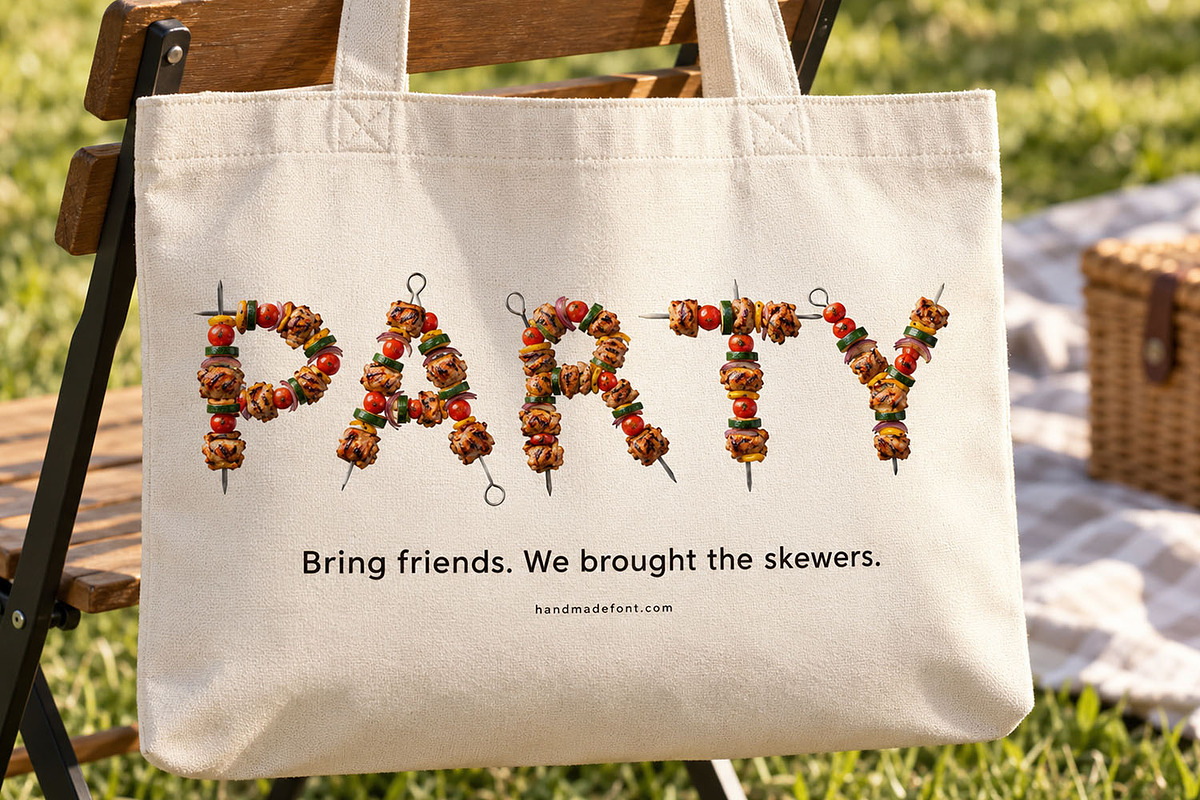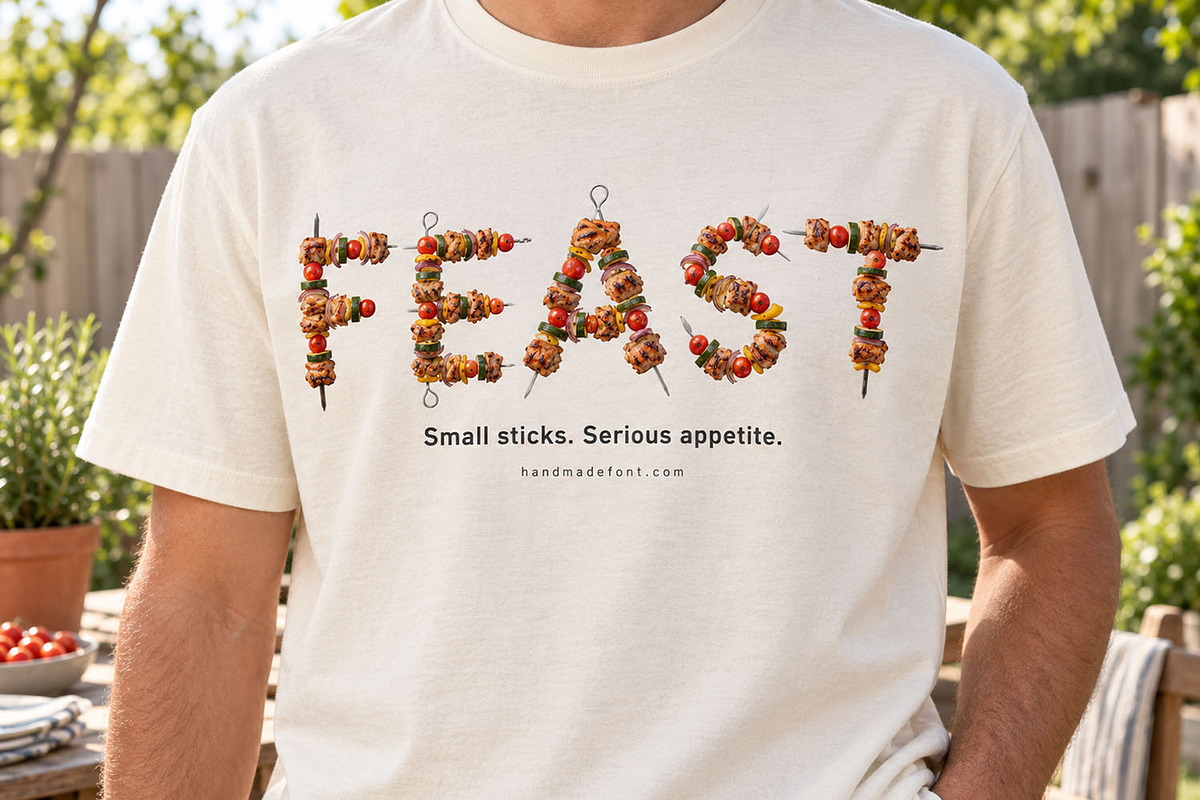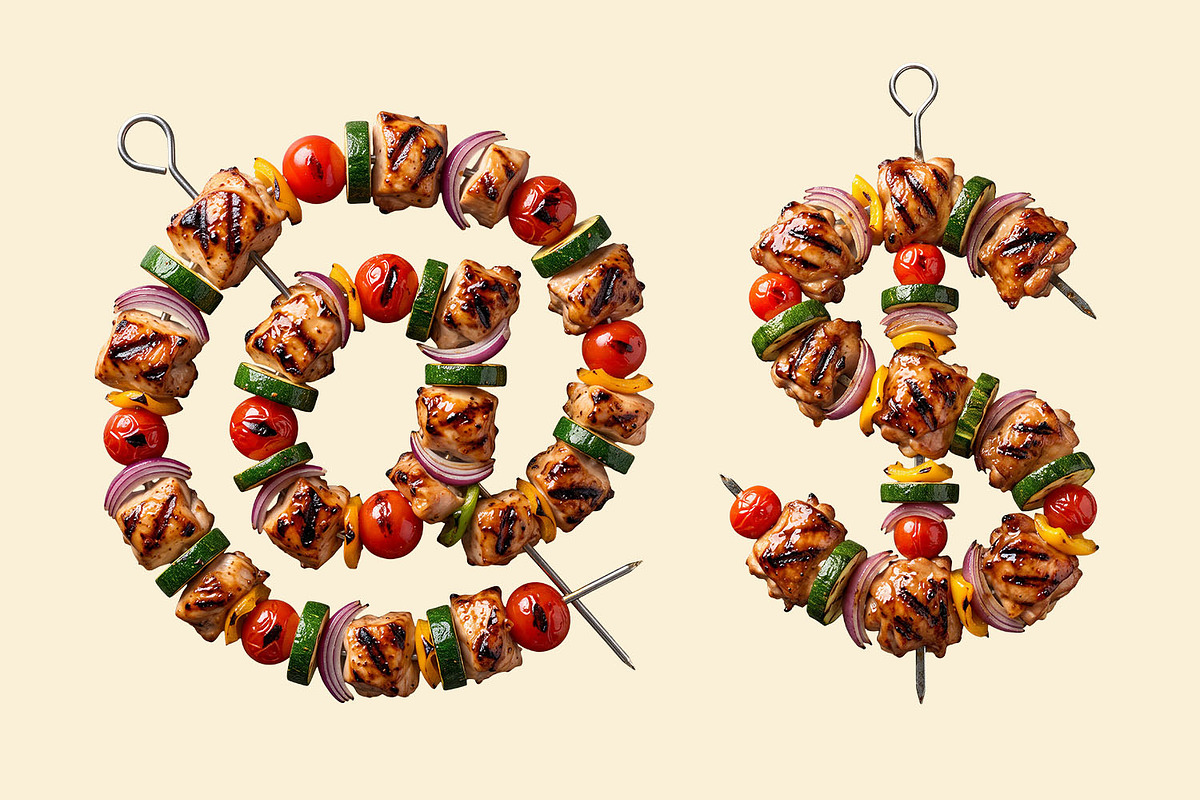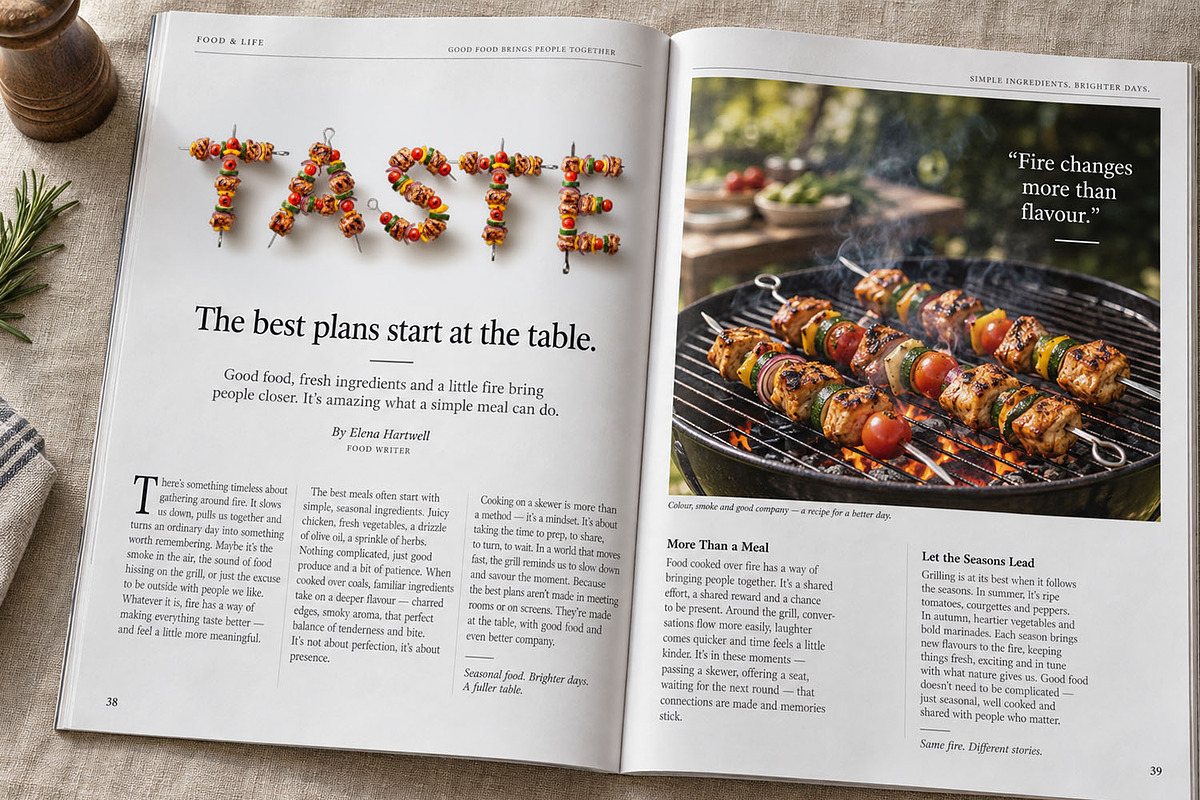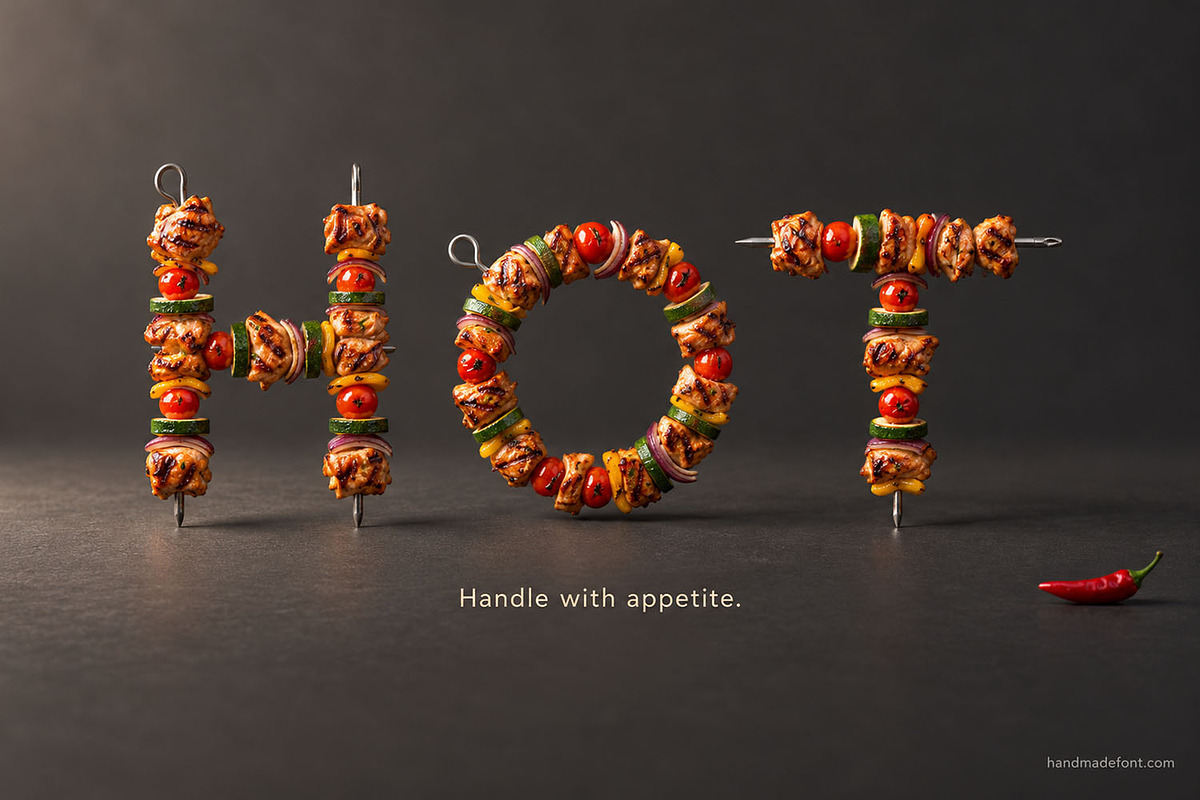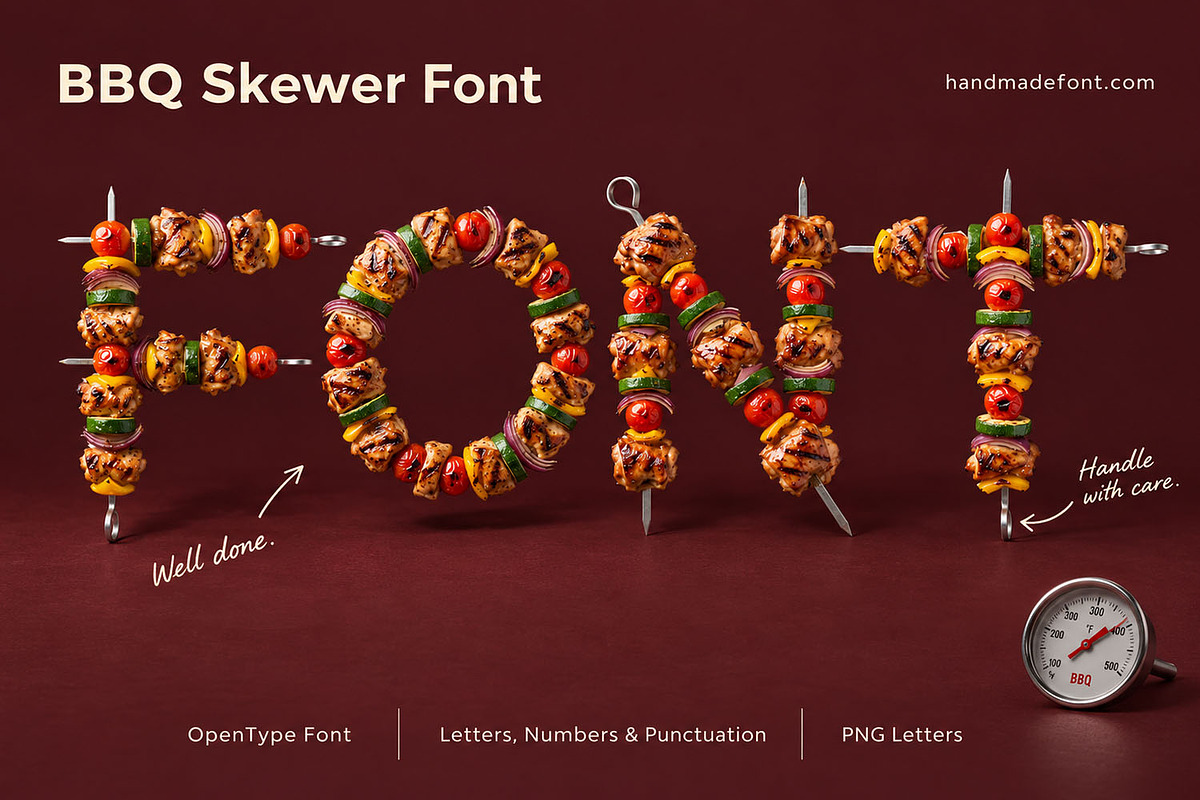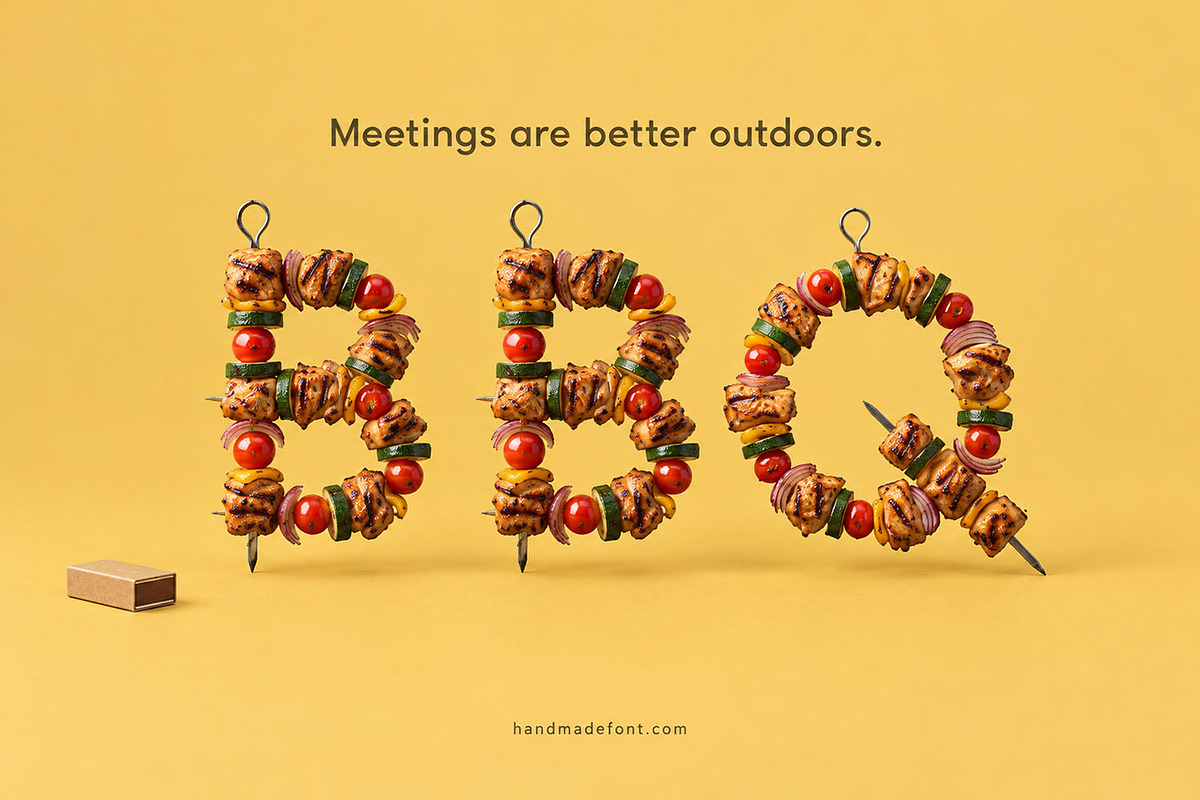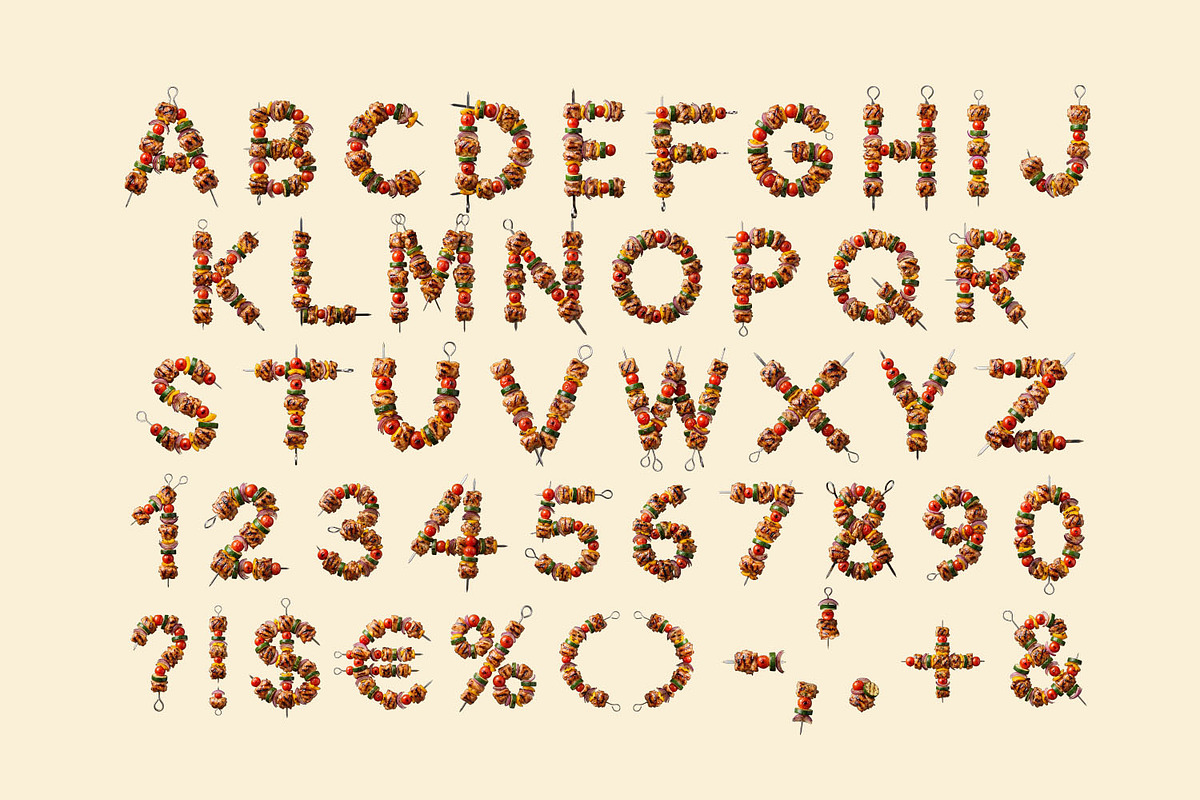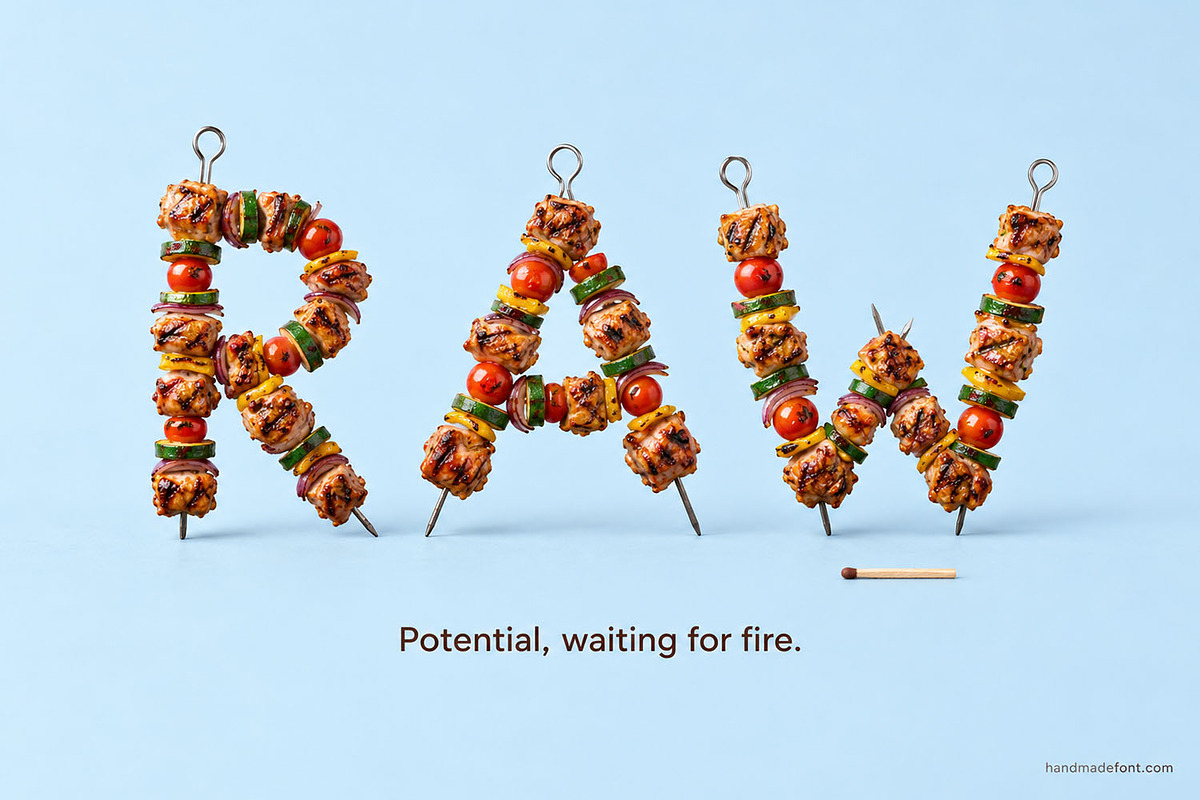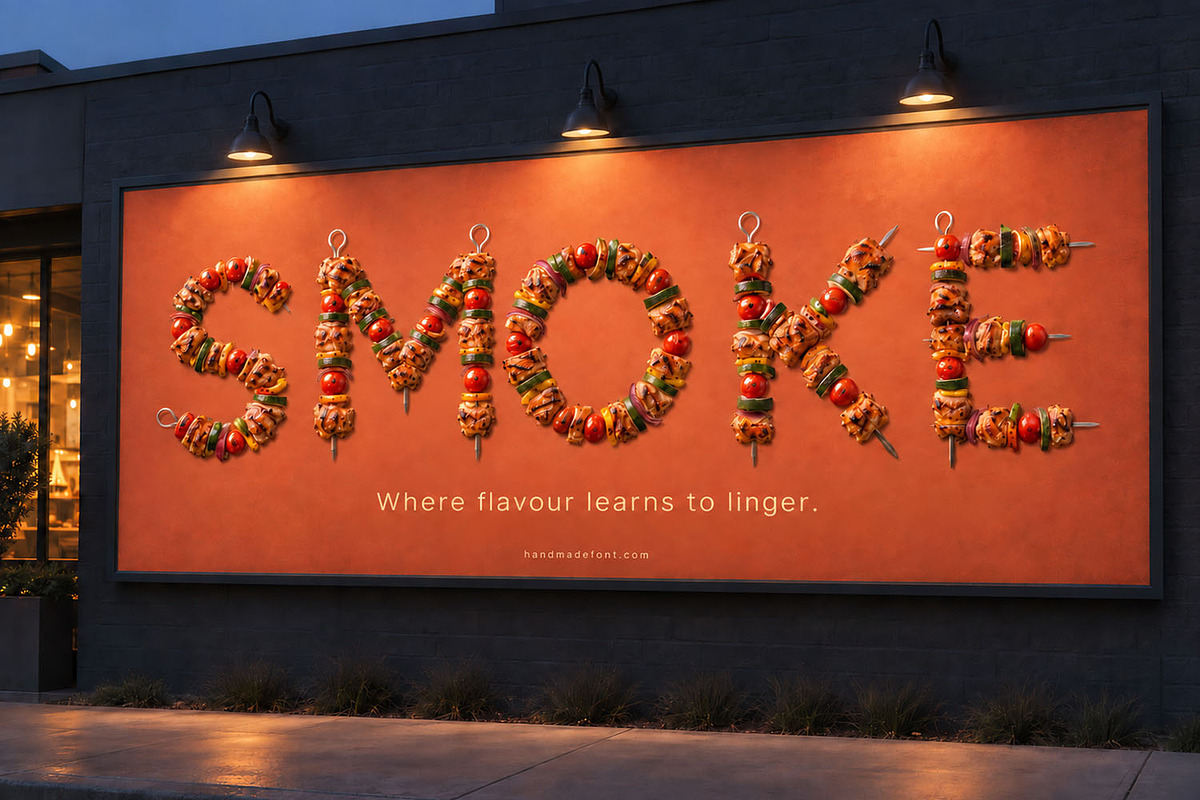
BBQ Skewer Font
BBQ Skewer Font is a deliciously playful display typeface made from colorful grilled skewers filled with juicy chicken, tomatoes, peppers, zucchini, and onions. Every character brings the lively spirit of a summer barbecue to your designs, combining appetizing detail with a fun handmade look. Perfect for restaurant menus, food packaging, grill party invitations, social media posts, recipe titles, posters, and promotional graphics. The set includes uppercase and lowercase letters, numbers, and punctuation. BBQ Skewer Font comes as an easy-to-use OTF font, plus each character is included separately as a high-quality PNG letter with a transparent background for flexible creative compositions.